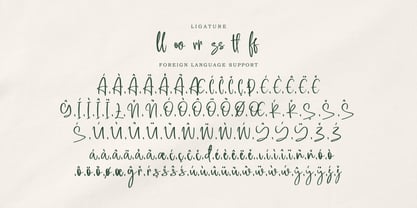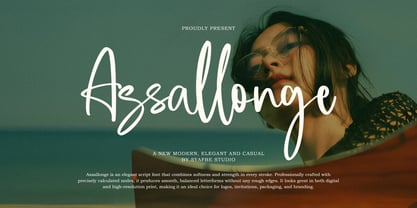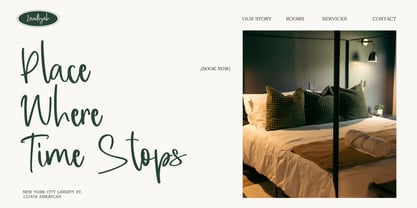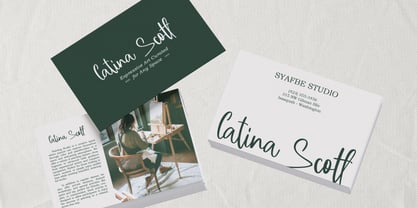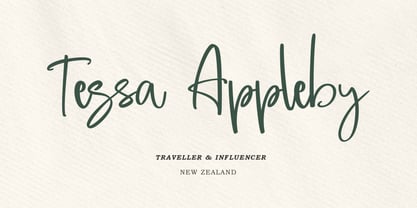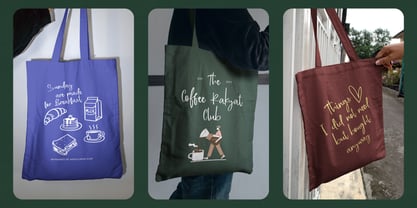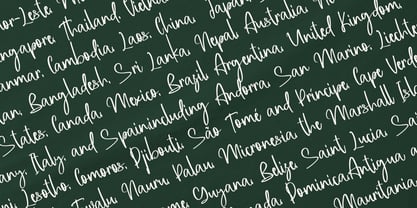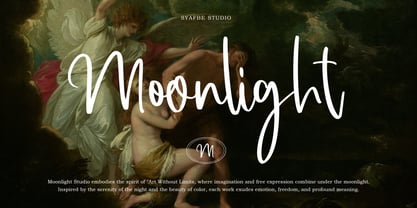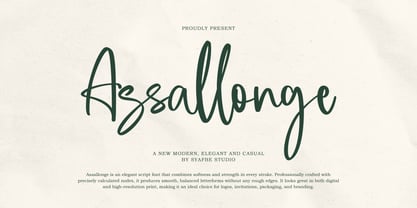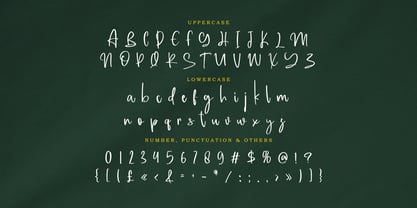
Assallonge
by Syafbe
The Assallonge Font Family was designed by Syafwan Mus and published by Syafbe. Assallonge contains 1 styles. More about this family
Assallonge is a modern script font that combines elegance, softness, and strength in a harmonious visual experience. Each stroke feels natural and flowing, creating a delicate handwritten look that retains its strong character. The design is crafted with high precision, resulting in balanced, clean letterforms without harsh edges, creating a professional appearance across a variety of media. The beauty of Assallonge lies in its ability to convey both elegance and casualness. This font is suitable for a variety of design needs from logos and invitations to product packaging and branding as it adds a warm and personal touch without losing its luxurious feel. Each letter conveys a gentle emotion combined with a modern visual clarity. Assallonge delivers optimal results in both digital and high-resolution print. Its consistent quality makes it an ideal choice for designers seeking typography with a romantic, artistic, and professional character. With Assallonge, every design will appear more vibrant, elegant, and full of natural beauty.